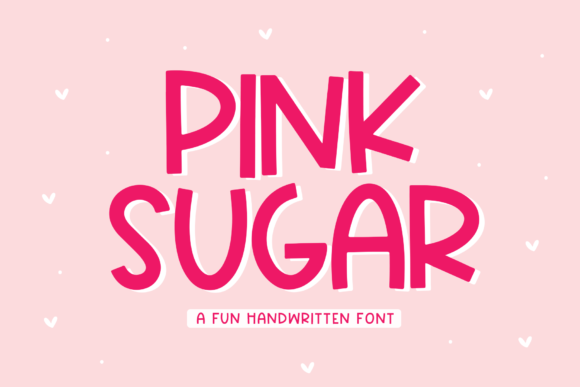
Introducing Pink Sugar Font, the ultimate display font to add a touch of cuteness and playfulness to all your crafting projects. Created by KA Designs, Pink Sugar Font is a must-have font for anyone who loves to add a personal touch to their designs.
This display font is the perfect combination of sweet and playful, making it the perfect choice for anyone looking to add a unique touch to their designs. With its handwritten style, Pink Sugar Font is perfect for all kinds of crafting projects. Whether you’re creating party invitations, custom t-shirts, or stickers, Pink Sugar Font will make your designs stand out.
The versatility of Pink Sugar Font makes it a great choice for both busy backgrounds and standalone headlines. Its unique and eye-catching style will instantly draw the attention of your audience, making it the perfect font for social media graphics, blog posts, and more.
In addition to its playful and cute design, Pink Sugar Font is also incredibly easy to use. Its simple yet elegant style means that it’s perfect for both beginners and experienced designers alike. With Pink Sugar Font, you don’t have to be a design expert to create stunning graphics.